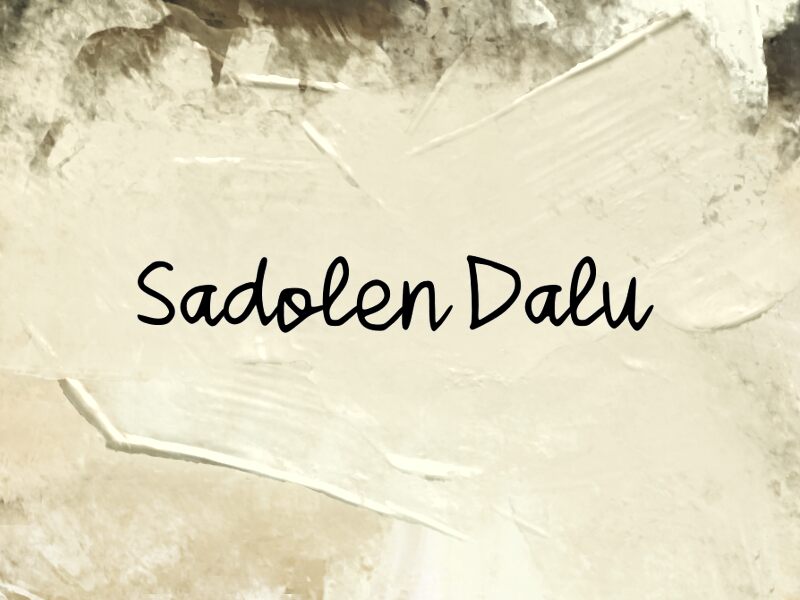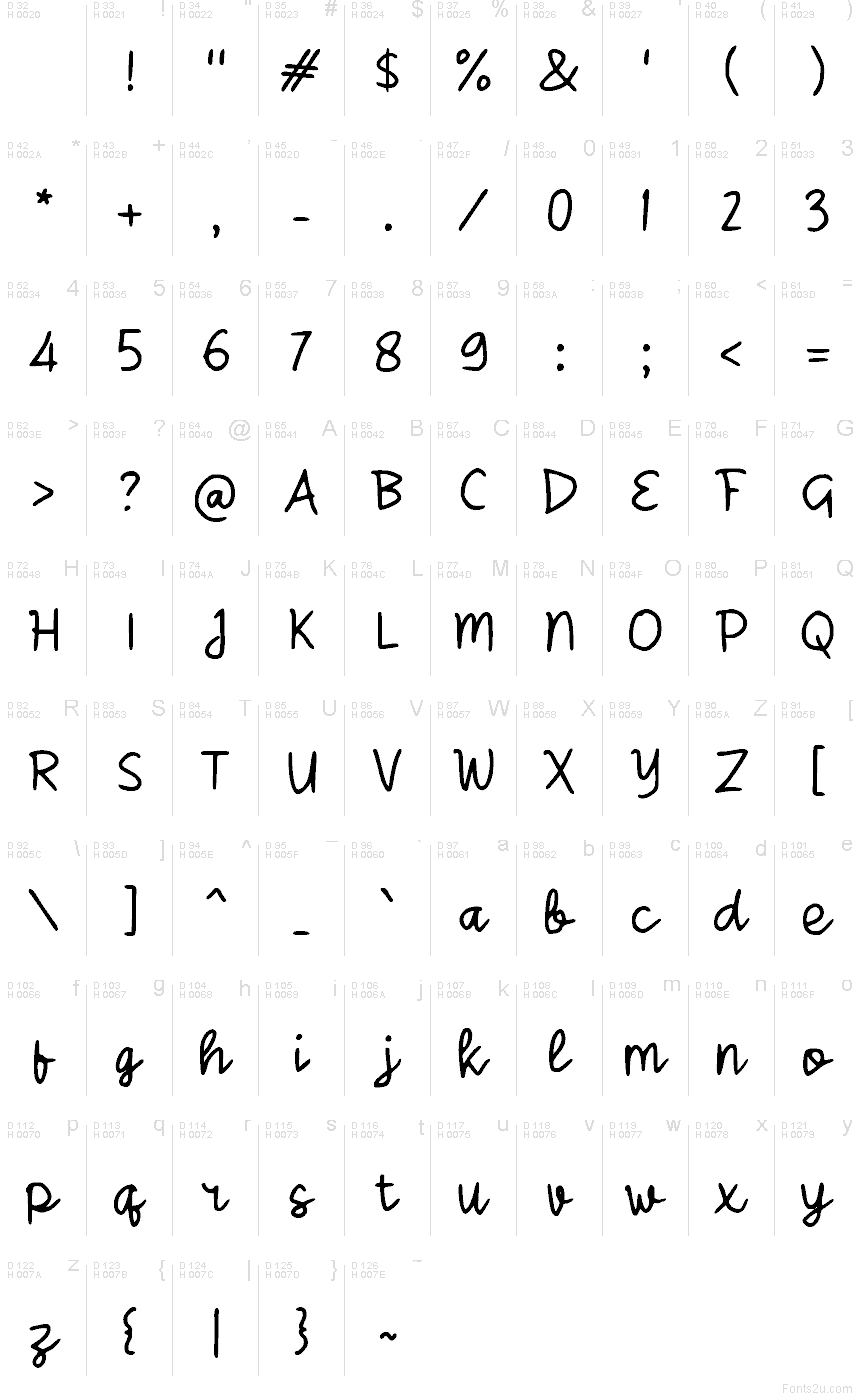
Sadolen Dalu
Sadolen Dalu font by wepfont.com is a free handwritten font that captures the look of quick, confident pen strokes without sacrificing clarity. The letters are slightly loose and bouncy, with smooth curves and just enough wobble to feel genuinely human. It has that casual, jot-it-in-your-notebook energy, but the spacing stays even and readable, so longer words and phrases don’t turn into a tangle of loops.
Using Sadolen Dalu, this free font shines on quote graphics, personal logos, casual branding, journaling layouts, greeting cards, and social media posts where you want warmth without mess. It brings a friendly, conversational tone that feels like a real signature, not a stiff script. Pair this handwritten typeface with a clean sans serif for body text, and let Sadolen Dalu handle the headlines, names, and short, expressive phrases at larger sizes.